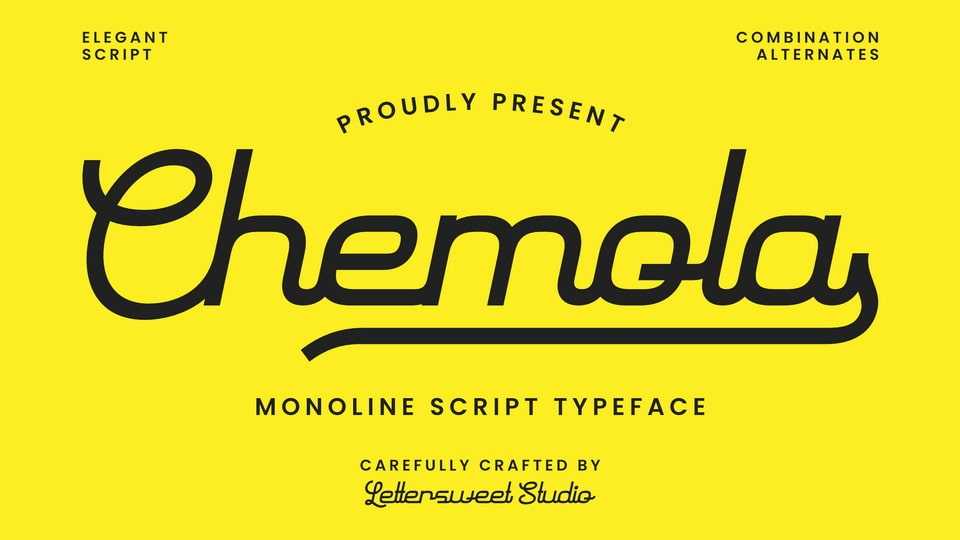
Download Chemola font, a smooth monoline script typeface with clean curves, rounded corners, and a confident flow. Its easy connections, stylish swashes, and combination alternates.